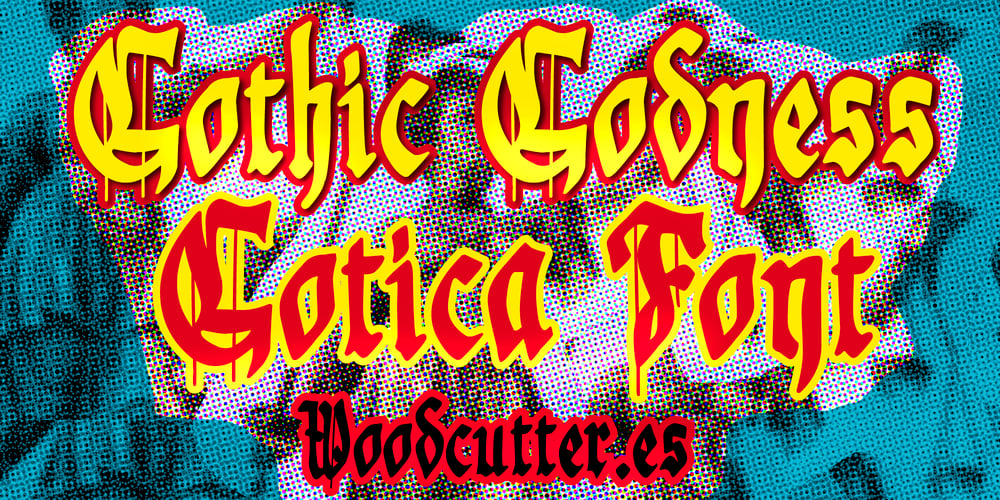
Gothic Godness Font Family was designed by Jordi Manero and published by Woodcutter. Gothic Godness contains 1 styles and family package options. “Gothic Godness” is a medieval gothic font with classic, bold letters of fine aesthetic. This typeface captures the essence of traditional gothic script, bringing an air of majesty and solemnity to any design. Ideal for projects requiring a historical and elegant touch, “Gothic Godness” is perfect for titles, formal invitations, and any work aiming to evoke the mystery and grandeur of the medieval era. Its precise strokes and elaborate details add unmatched sophistication to your creations.